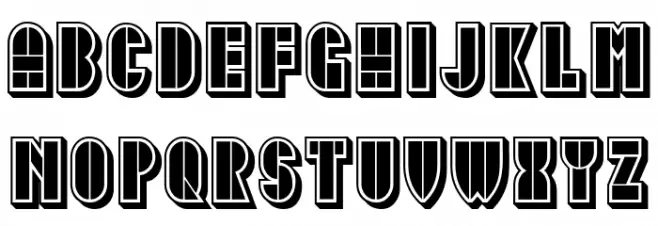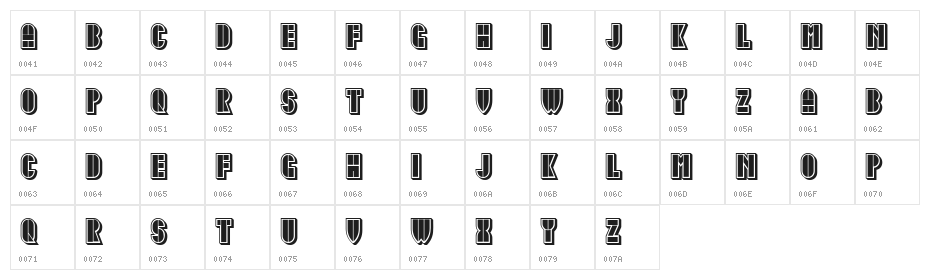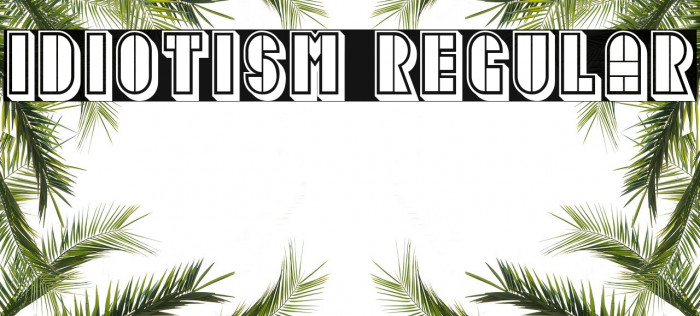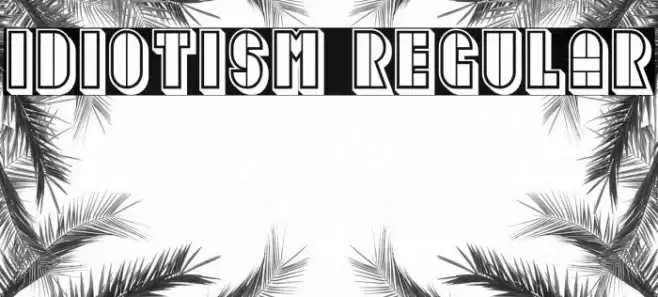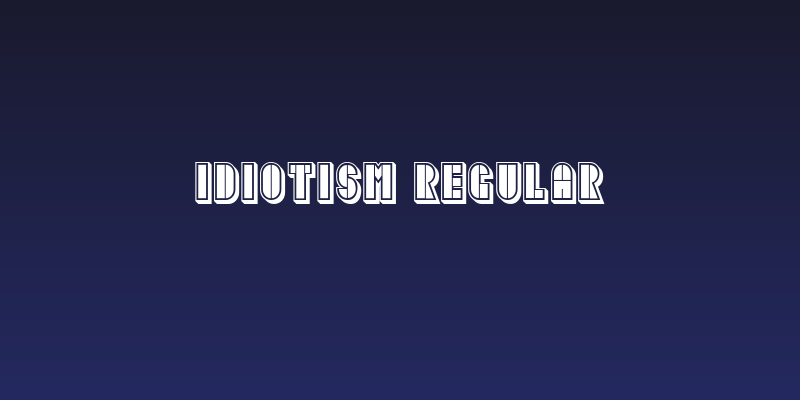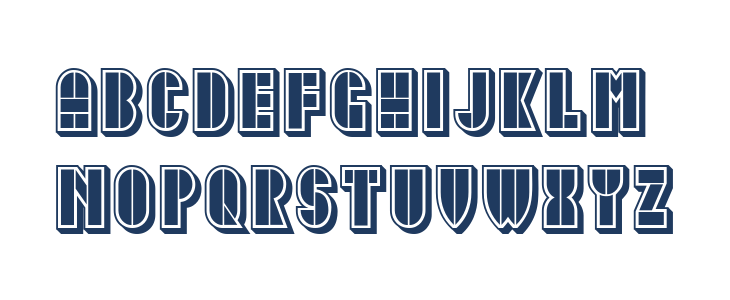
Idiotism Regular Font
Idiotism Regular Description
This font features a bold, geometric design with a strong presence. Each character is outlined with a thick border, creating a striking contrast between the filled and empty spaces. The letters are constructed with sharp angles and straight lines, giving them a modern and edgy appearance. The uppercase letters are particularly prominent, with a block-like structure that commands attention. The font's unique style makes it suitable for eye-catching headlines and titles. Its decorative elements add a playful yet sophisticated touch, making it versatile for various creative projects.